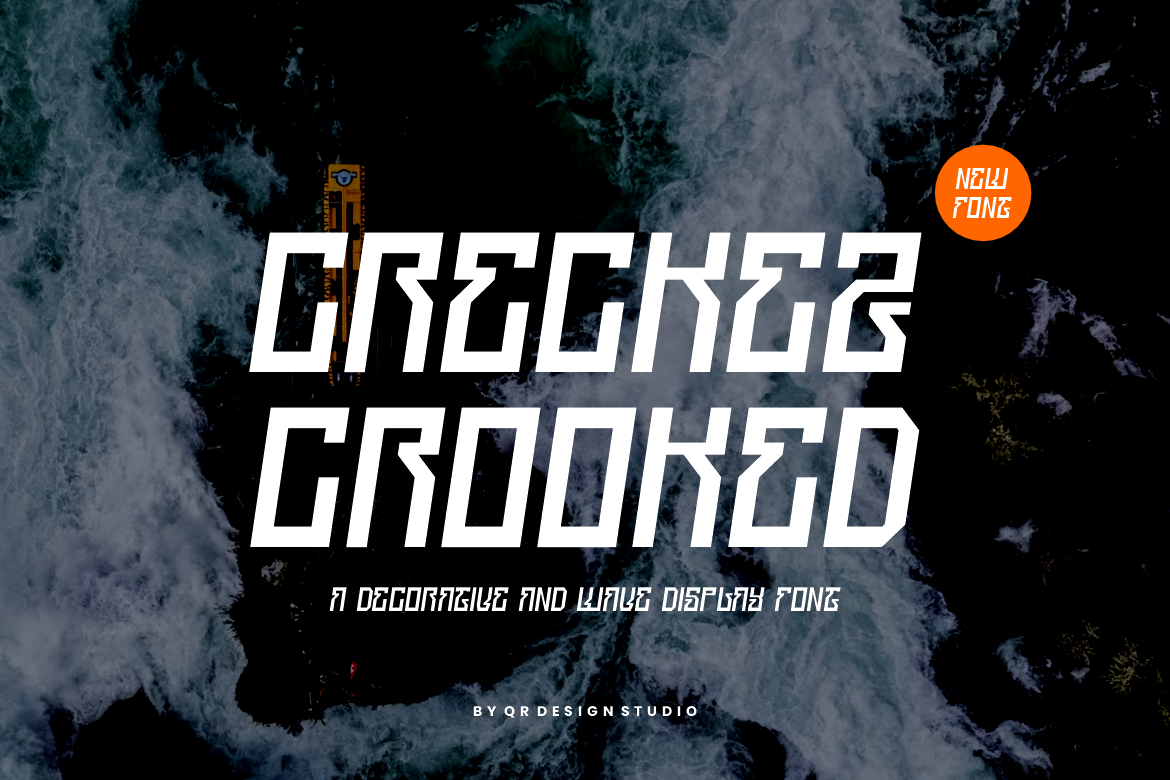
Creckez Crooked - Greek & Wave Font
Creckez Crooked Font is a decorative and authentic display font. The font is suitable for any branding project like poster, logo, sport, and many more. Outstanding in a wide range of contexts.